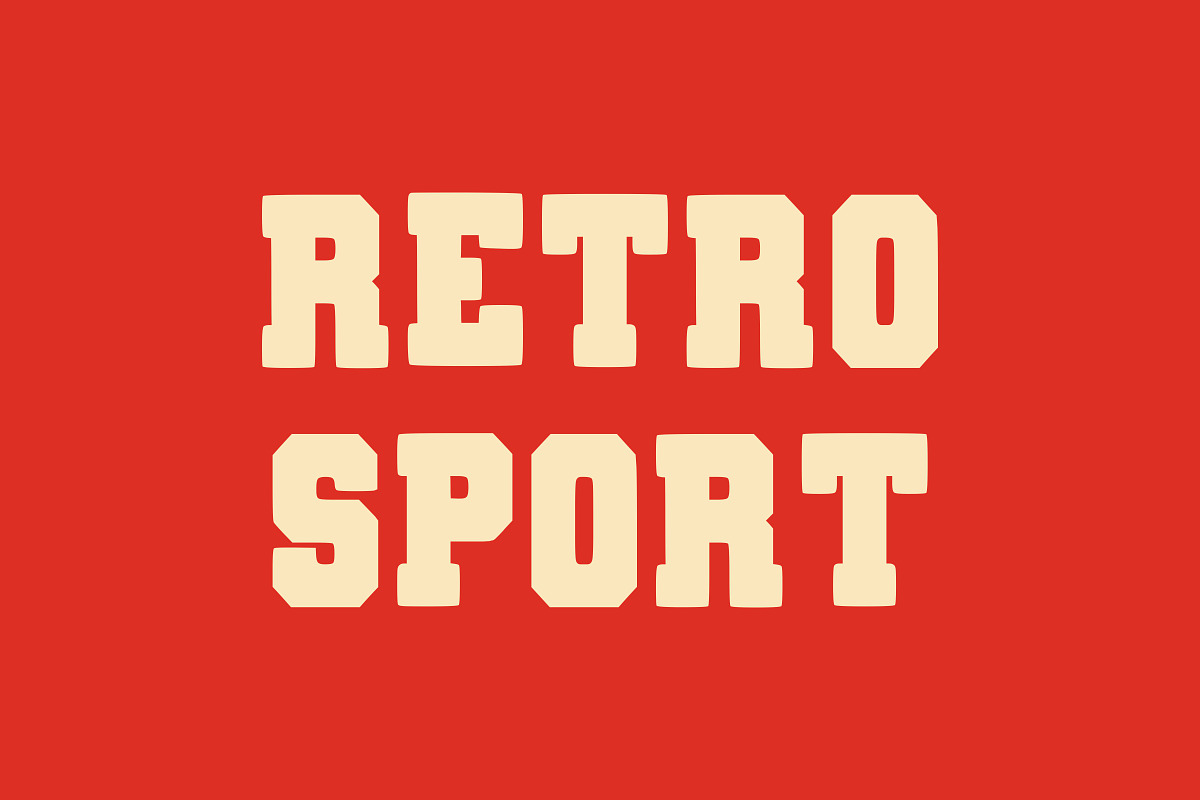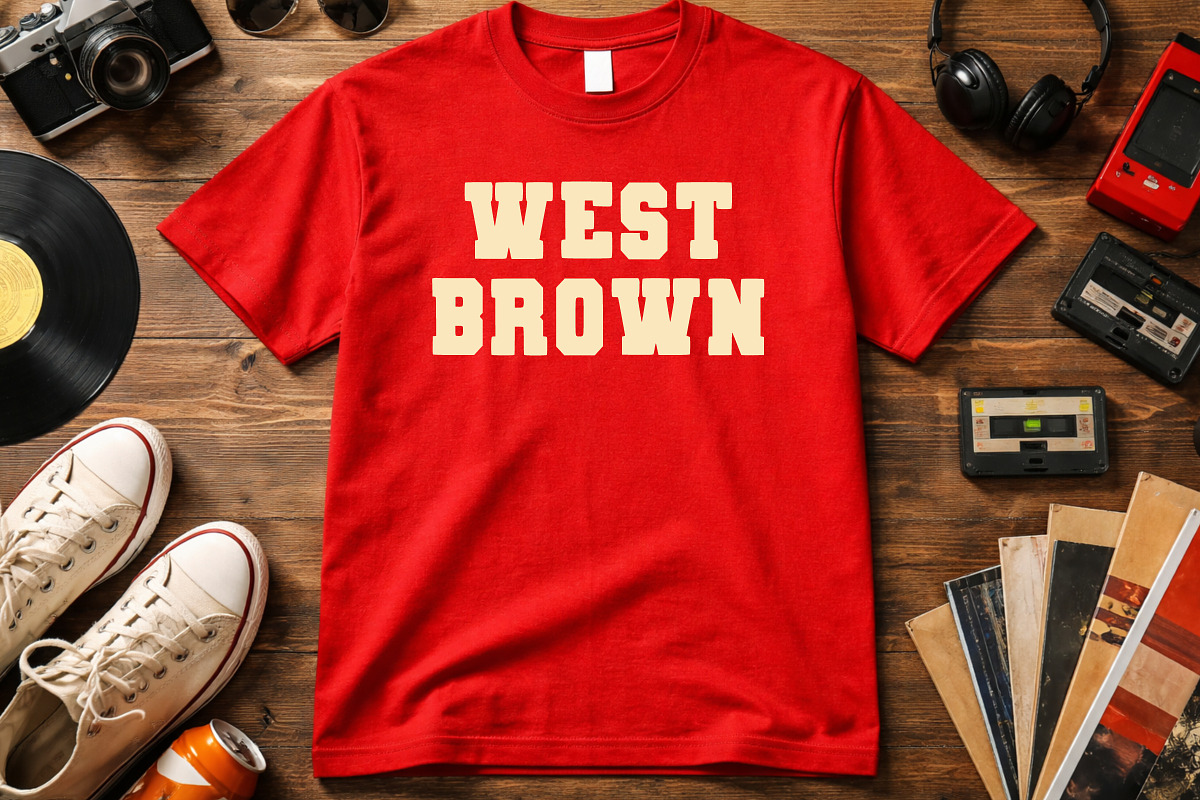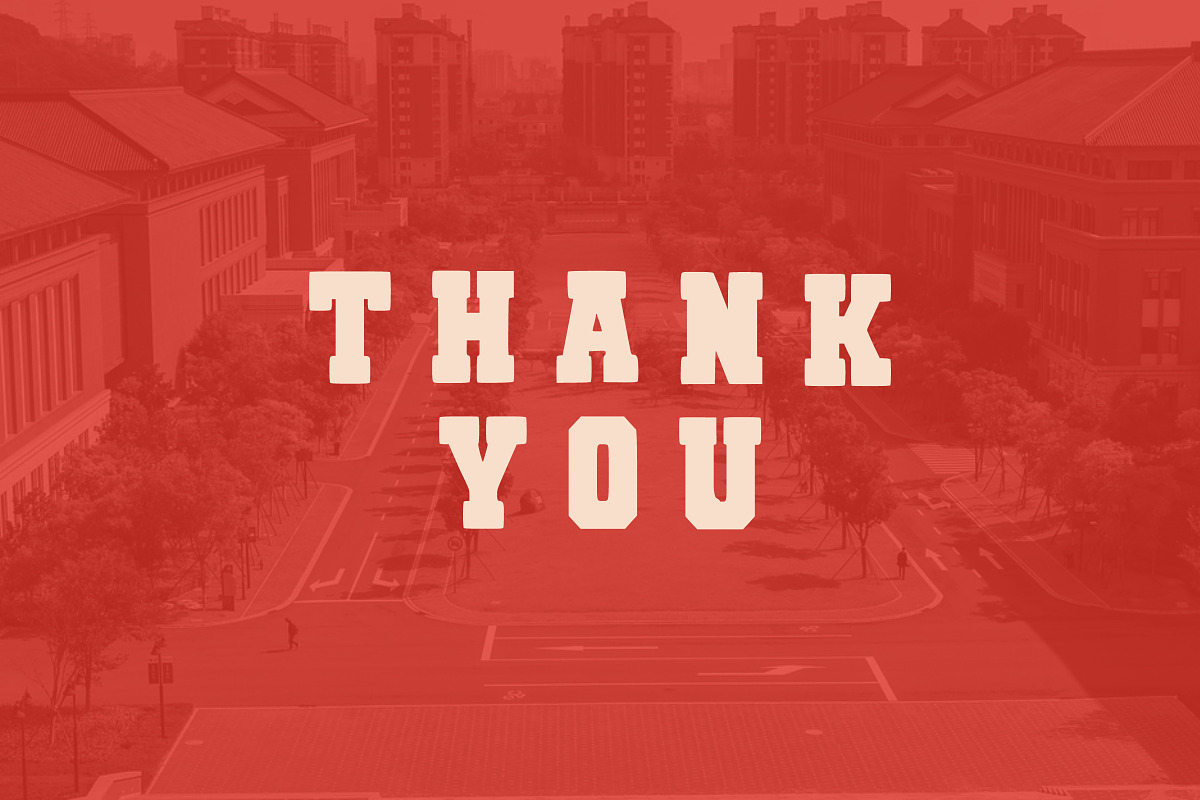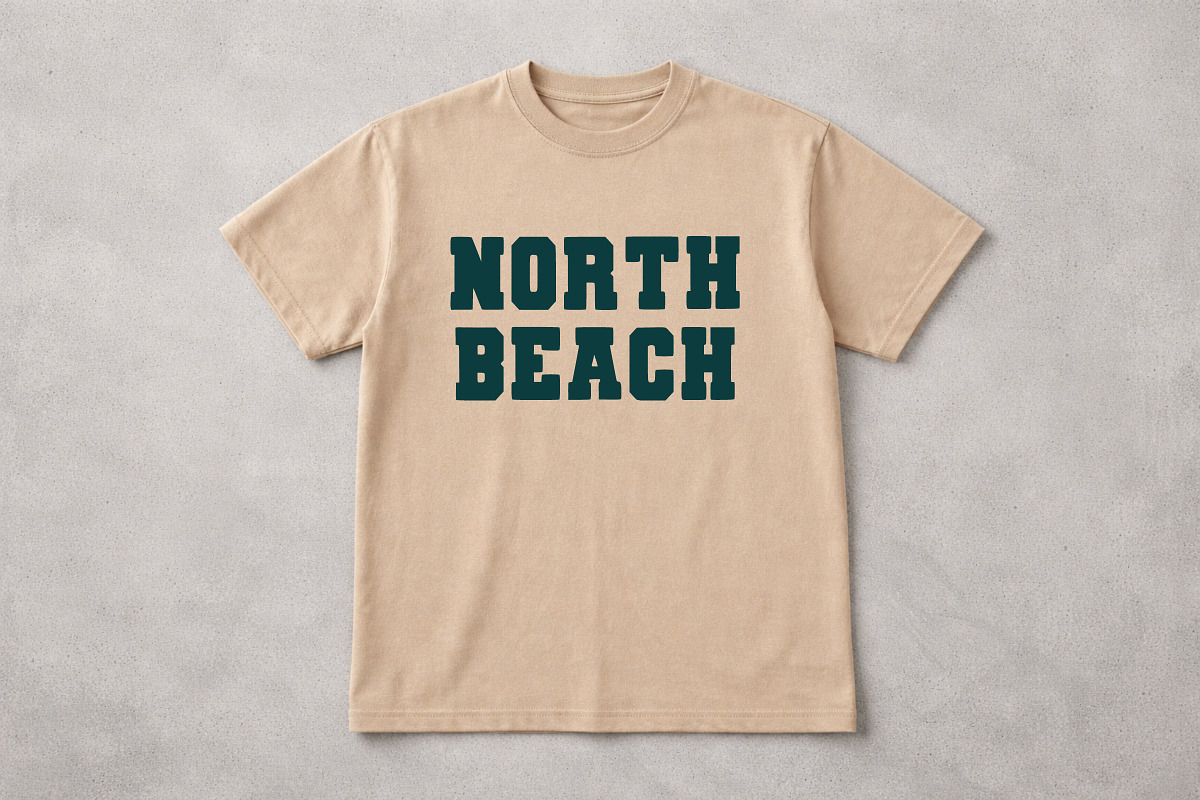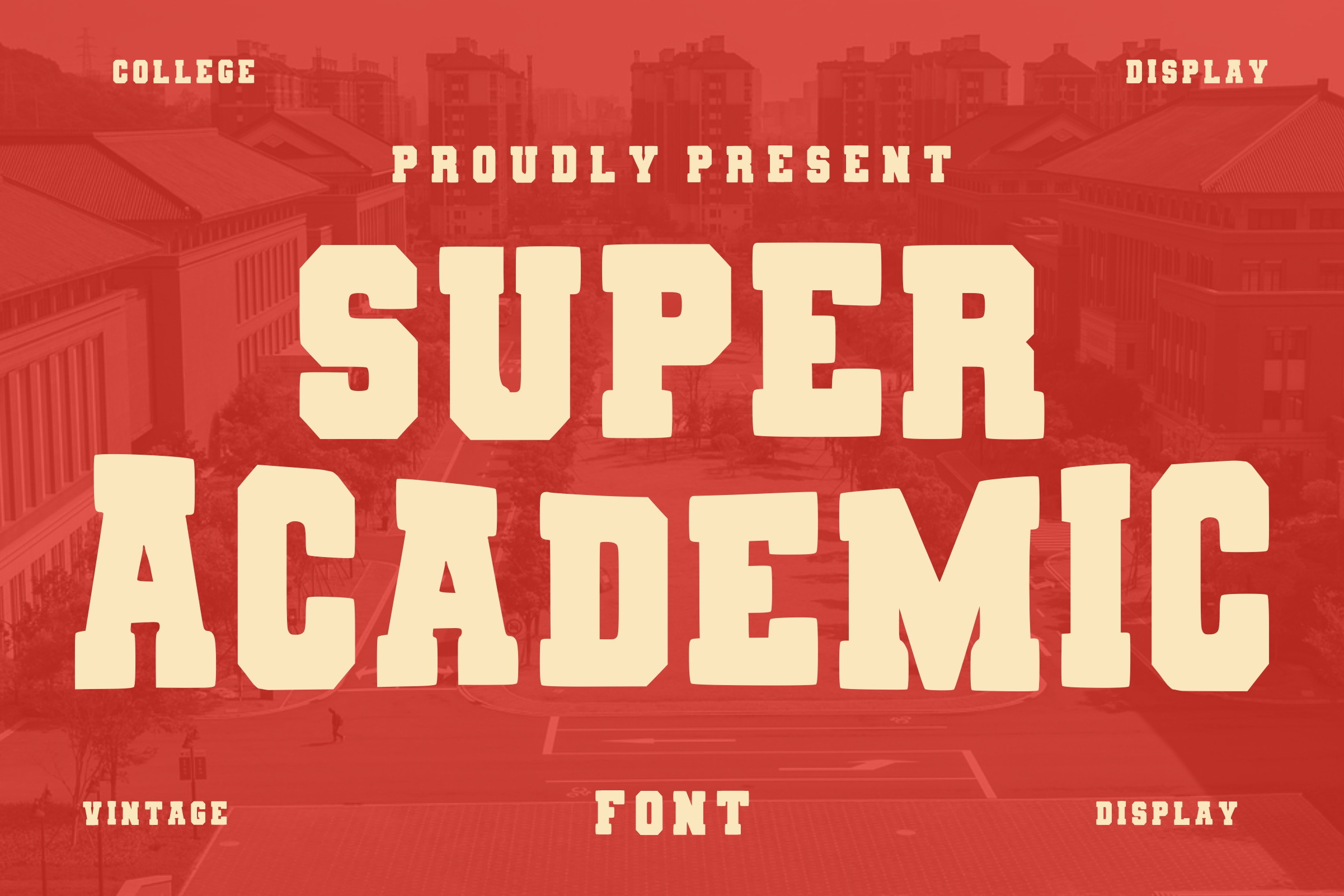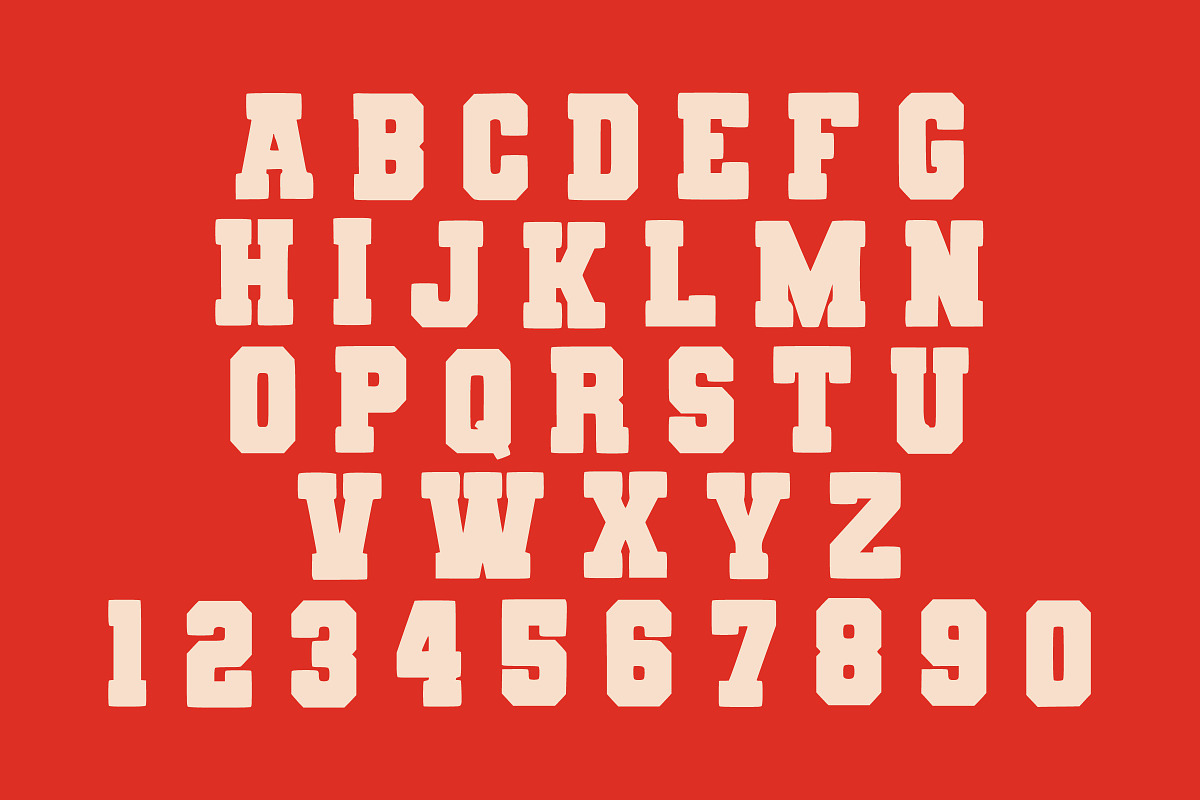
Super Academic College Display Font
Super Academic is a bold college display font inspired by classic varsity lettering, vintage campus aesthetics, and retro sports typography. Designed with strong slab serif shapes and authentic collegiate character, this font is perfect for university branding, sports apparel, logos, posters, banners, merchandise, social media graphics, and retro-themed projects. Its powerful athletic style delivers a timeless vintage look that stands out in both modern and classic designs.